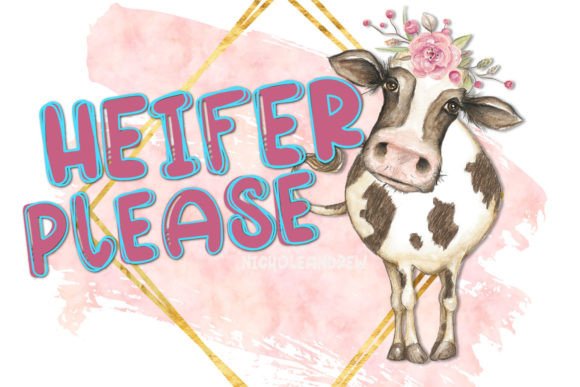
Meet Heifer Please, the playful and captivating handwritten bubble font that will add a touch of whimsy and charm to your creative projects! With its three distinct styles – Solid, Outline, and Doodle – this font family offers endless possibilities for creating unique and eye-catching designs.
Immerse yourself in the world of Heifer Please and let your imagination run wild. Whether you're working on personal projects, crafting personalized cards, designing social media graphics, or creating custom t-shirts, this font will elevate your designs and leave a lasting impression.
With Heifer Please, you'll have the power to transform ordinary text into extraordinary expressions. Its bold and cheerful characters will dance across your designs, capturing attention and sparking joy.